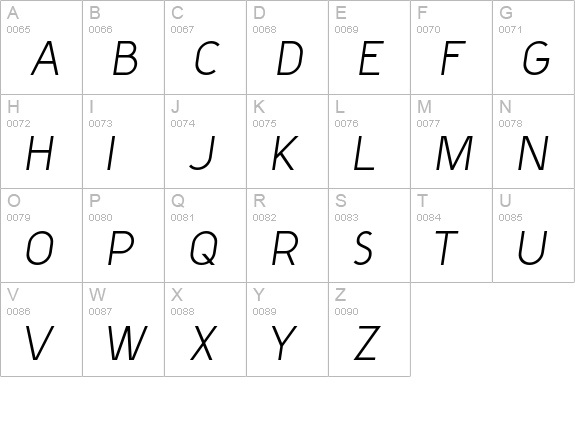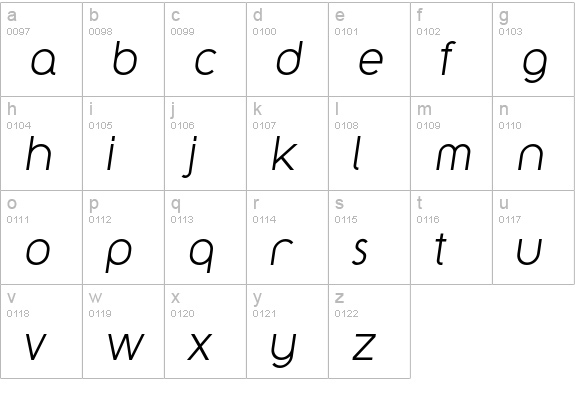
Y2K Neophyte Italic is a distinctive, italic variant in the Y2K typeface family \xE2\x80\x94 well suited to design and typography projects.
Y2K Neophyte Italic font is a modern and stylish typeface that exudes a sense of newness and innovation. With its sleek and sophisticated design, this font is perfect for adding a contemporary touch to your projects. The italicized style adds a dynamic and elegant flair, making it ideal for headings, titles, and branding materials. What's even better is that Y2K Neophyte Italic font is available for free download at FontsMarket.com. Now you can easily access this trendy font and elevate your designs without any cost. Don't miss out on the opportunity to add this versatile typeface to your collection and bring a fresh look to your creative works.